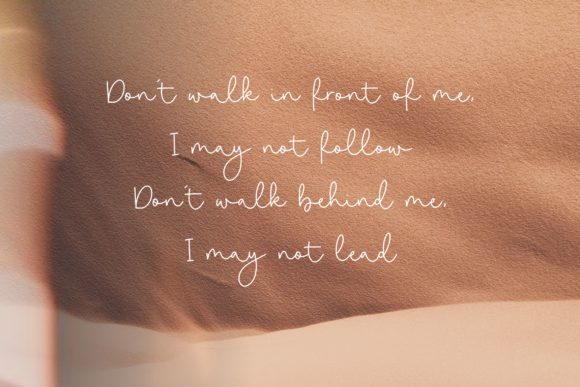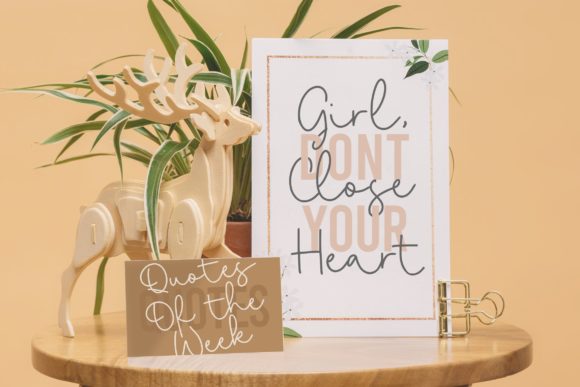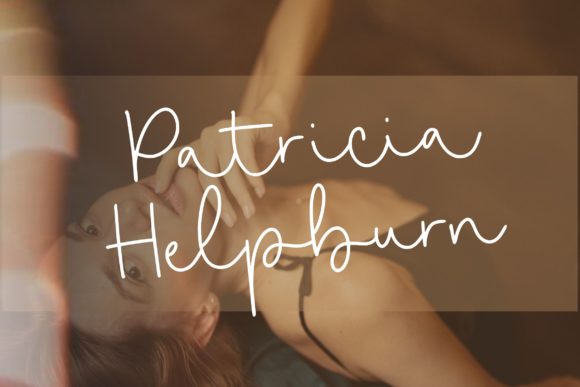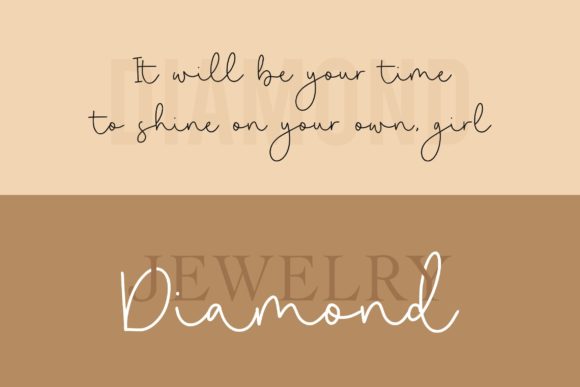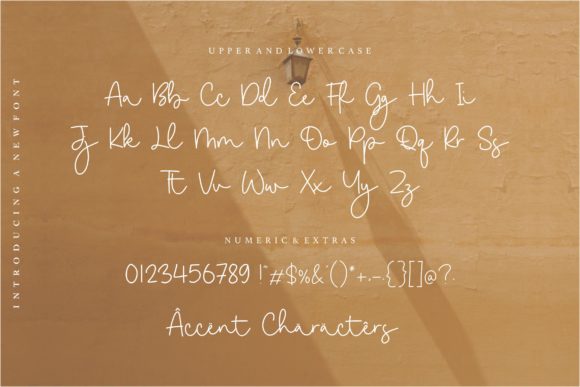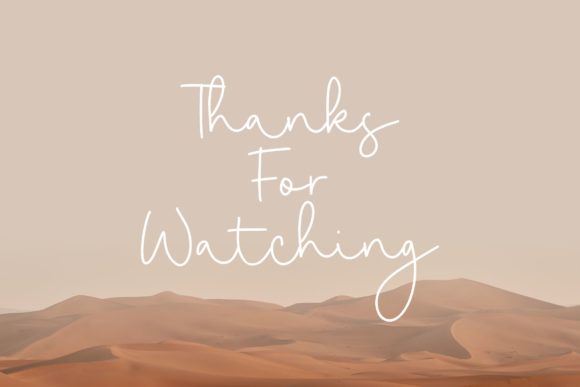
Introducing Goldwind Font: The Epitome of Elegance and Versatility
Are you on the hunt for a font that exudes elegance, sophistication, and a touch of whimsy? Look no further than Goldwind Font, a breathtakingly beautiful handwritten font that is sure to capture your heart. With its flowing lines, delicate curves, and versatile style, Goldwind Font is the perfect addition to any design project, from wedding invitations and stationery to social media posts and more.
The Beauty of Goldwind Font
Goldwind Font is a masterclass in elegant typography. Its handwritten style is reminiscent of calligraphy, with each letter carefully crafted to convey a sense of luxury and refinement. The font’s flowing lines and curves give it a sense of movement and fluidity, making it perfect for designs that require a touch of dynamism. Whether you’re creating a wedding invitation, a social media post, or a piece of stationery, Goldwind Font is sure to add a touch of sophistication and glamour.
One of the standout features of Goldwind Font is its incredible versatility. This font can be used in a wide range of design projects, from formal events like weddings and galas to more casual applications like social media posts and blog headers. Its elegant style makes it perfect for:
- Blog headers and titles
- Stationery and greeting cards
Why Designers and Crafters Love Goldwind Font
So why do designers and crafters love Goldwind Font? For starters, its unique and elegant style sets it apart from more traditional fonts, making it perfect for designers looking to add a touch of personality to their work. Additionally, its versatility makes it a great choice for crafters who want to create a cohesive look across multiple projects. With Goldwind Font, you can:
- Create stunning wedding invitations and stationery that will leave a lasting impression
- Add a touch of elegance to your social media posts and graphics
- Elevate your blog or website with a sophisticated header font
- Design beautiful stationery and greeting cards that will delight your friends and family
Tips for Using Goldwind Font
To get the most out of Goldwind Font, here are a few tips to keep in mind:
- Use it sparingly: While Goldwind Font is beautiful, it can be overwhelming if used too much. Use it as a headline font or for key text elements to create visual interest.
- Pair it with complementary fonts: Goldwind Font pairs beautifully with clean, sans-serif fonts like Arial or Helvetica. Experiment with different pairings to find the perfect combination for your project.
- Experiment with colors: Goldwind Font looks stunning in a range of colors, from rich jewel tones to soft pastels. Don’t be afraid to experiment and find the perfect hue for your project.
In conclusion, Goldwind Font is a truly exceptional handwritten font that is sure to capture your heart. With its elegant style, flowing lines, and incredible versatility, it’s the perfect addition to any design project. Whether you’re a designer, crafter, or simply someone who appreciates beautiful typography, Goldwind Font is a must-have in your font collection. So why wait? Fall in love with Goldwind Font today and start creating stunning designs that will leave a lasting impression!